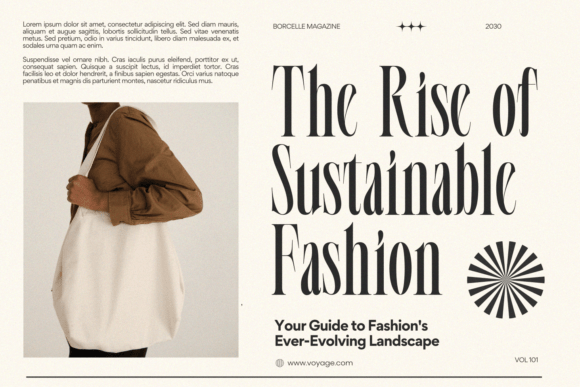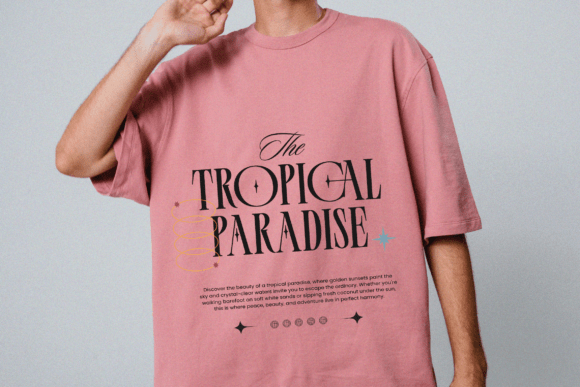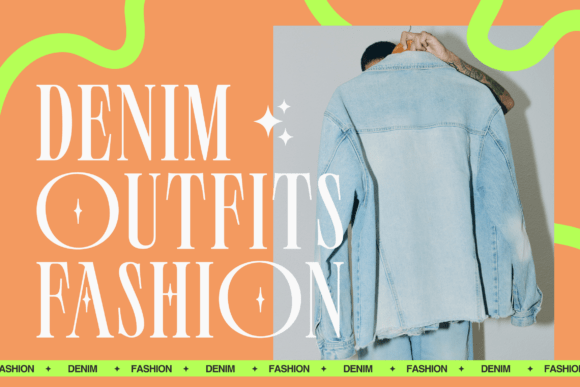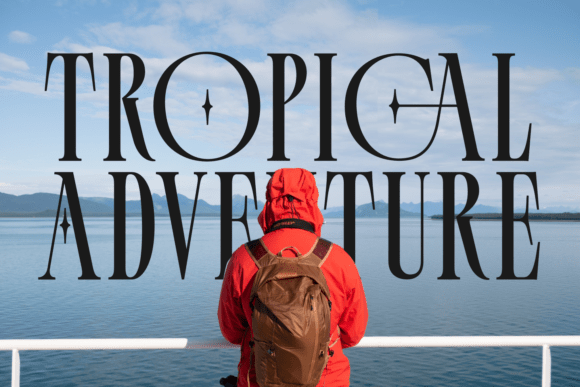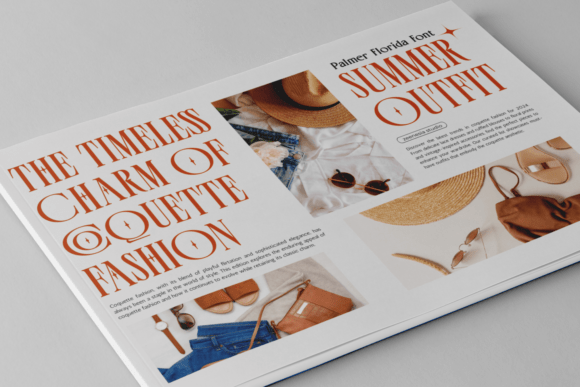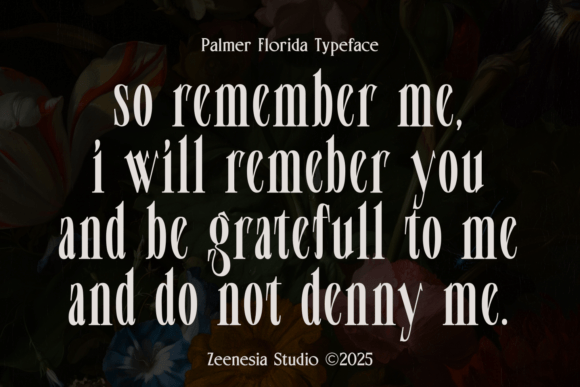
Introduction to Palmer Florida Font
Palmer Florida is a bold and charming display serif typeface with a unique retro twist.
Featuring high contrast strokes, elegant curves, and whimsical star-shaped details, this font brings a delightful blend of vintage flair and modern personality Perfect for logos, posters, packaging, or editorial headlines, Palmer Florida stands out with its playful yet classy character.
Key Features of Palmer Florida Font